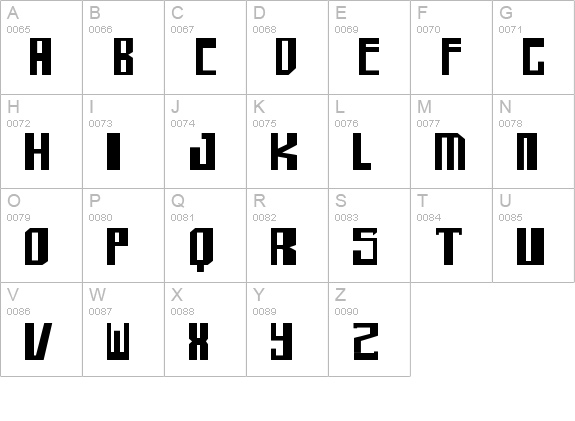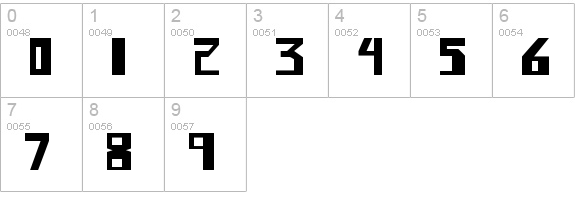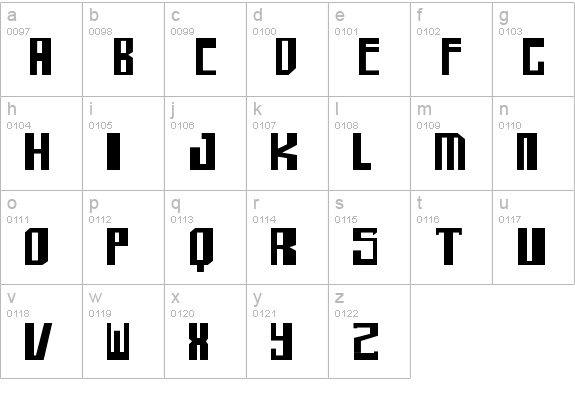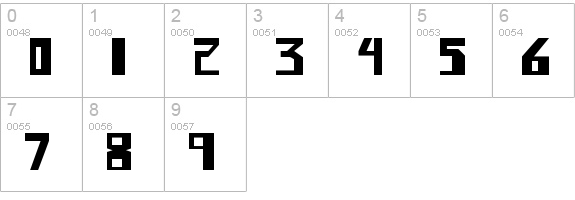
shellhead Bold is a strong, high-contrast variant in the shellhead typeface family \xE2\x80\x94 well suited to headlines, attention-grabbing titles, and strong calls-to-action.
Introducing Shellhead Bold, a striking and modern font that demands attention with its bold and dynamic appearance. This unique typeface features sharp edges and a sleek design that exudes confidence and style. Whether you're working on a poster, logo, or branding project, Shellhead Bold is sure to make a powerful statement. The best part? Shellhead Bold is available for free download at FontsMarket.com. This means you can elevate your designs without breaking the bank, making it the perfect choice for designers looking to add a touch of sophistication to their work. Don't miss out on this versatile and eye-catching font that is sure to leave a lasting impression. Download Shellhead Bold today and take your designs to the next level!